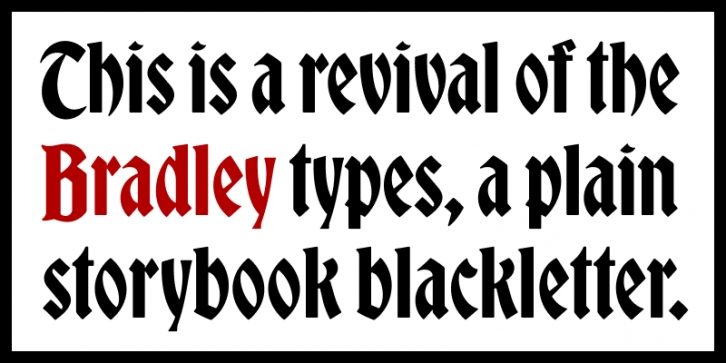
Bradley DJR is a revival of Bradley, a typeface released by American Type Founders in 1895. It is based on Will H. Bradley’s cover for the Christmas edition of The Inland Printer magazine, and most records show that it was Hermann Ihlenburg who completed the typeface design. Its simplified forms make it more accessible to readers who aren’t accustomed to blackletter, and this revival seeks to preserve its softness, descending capital letters, and distinctive storybook character.